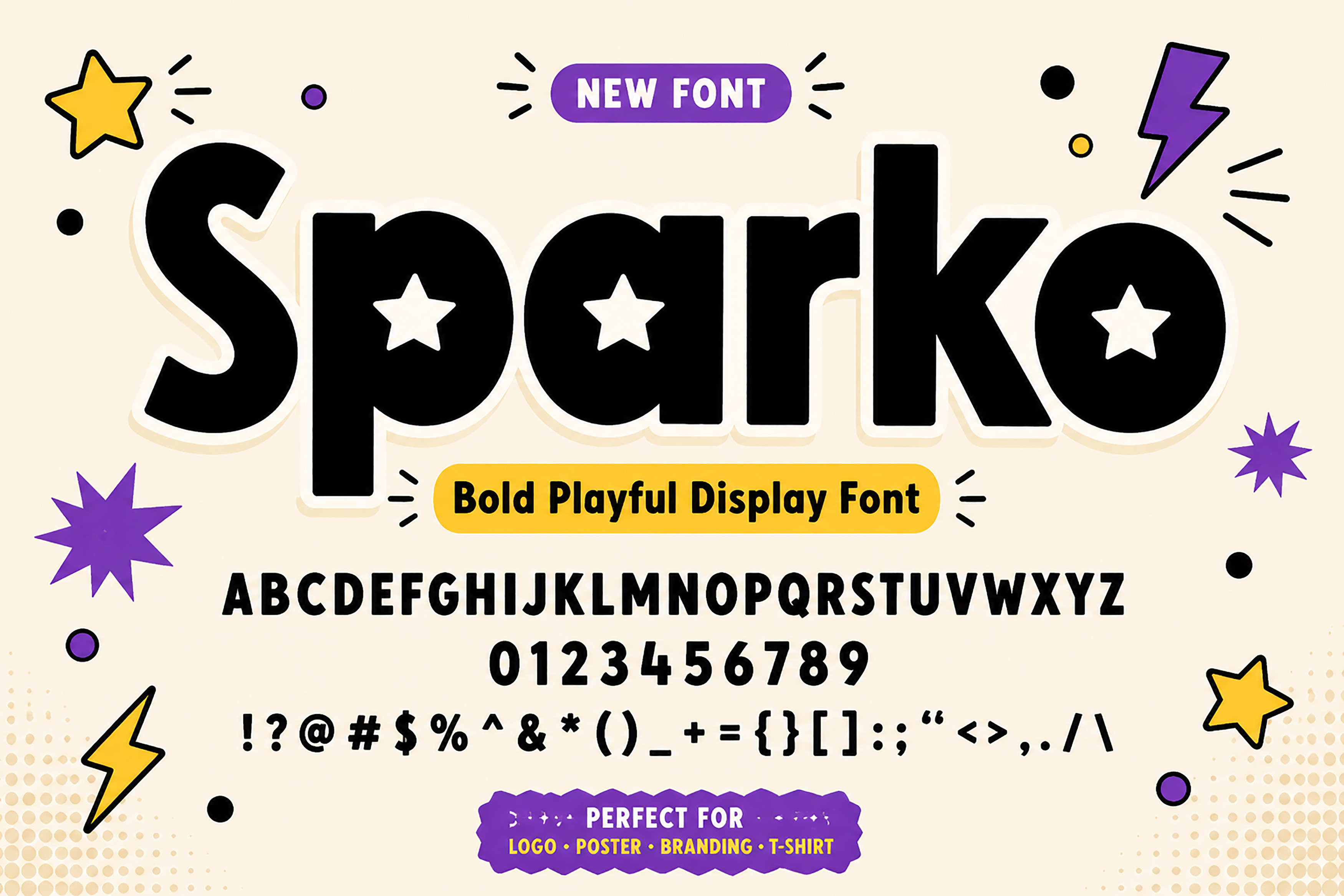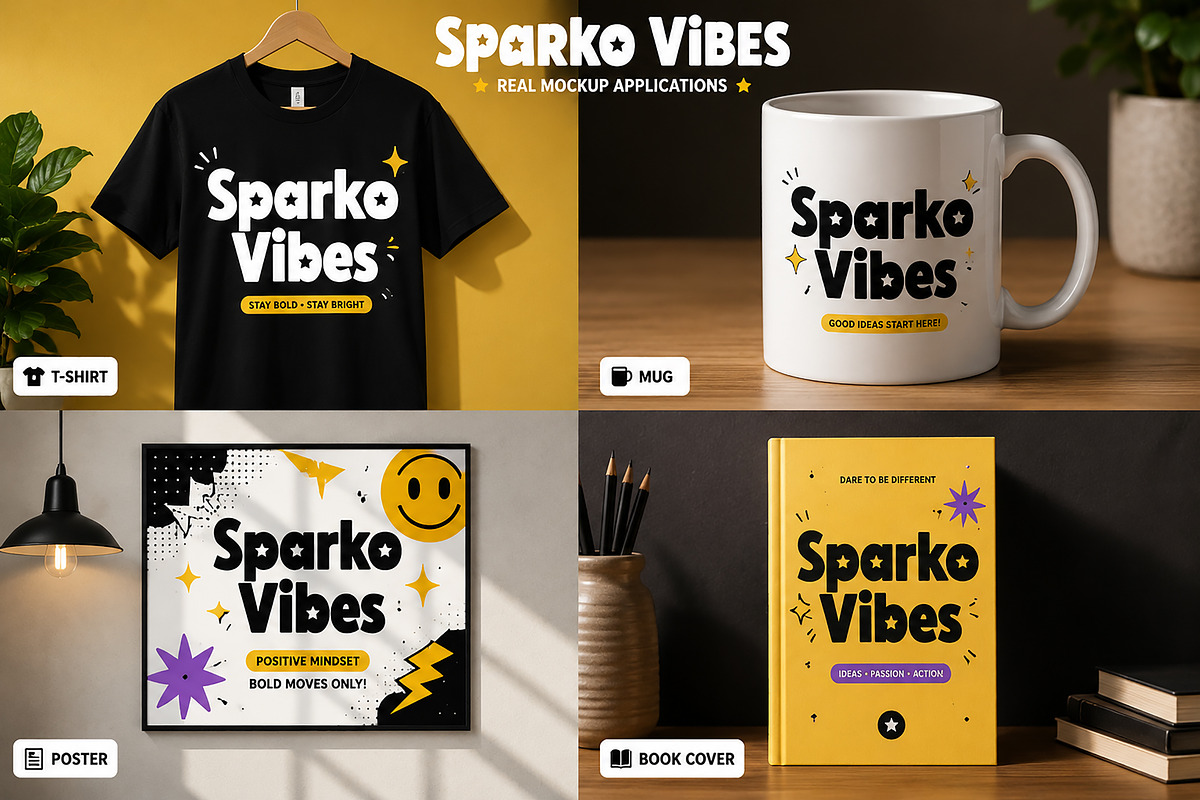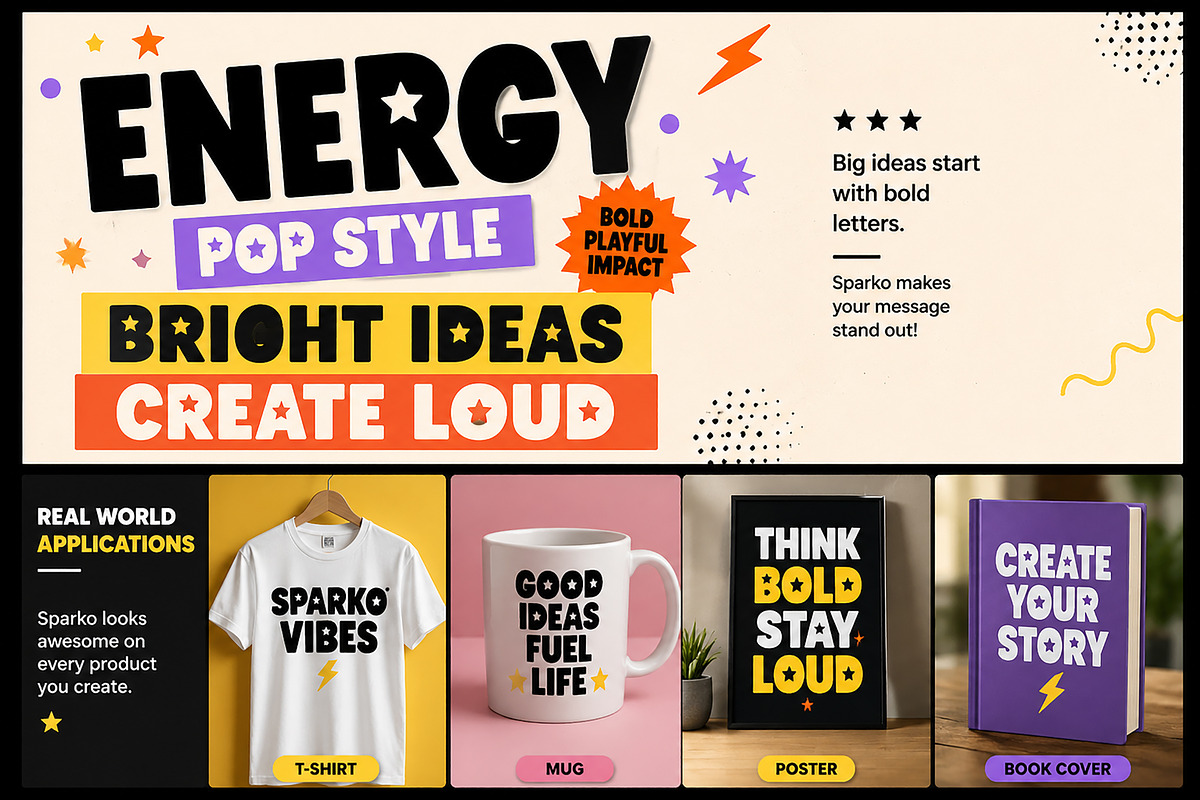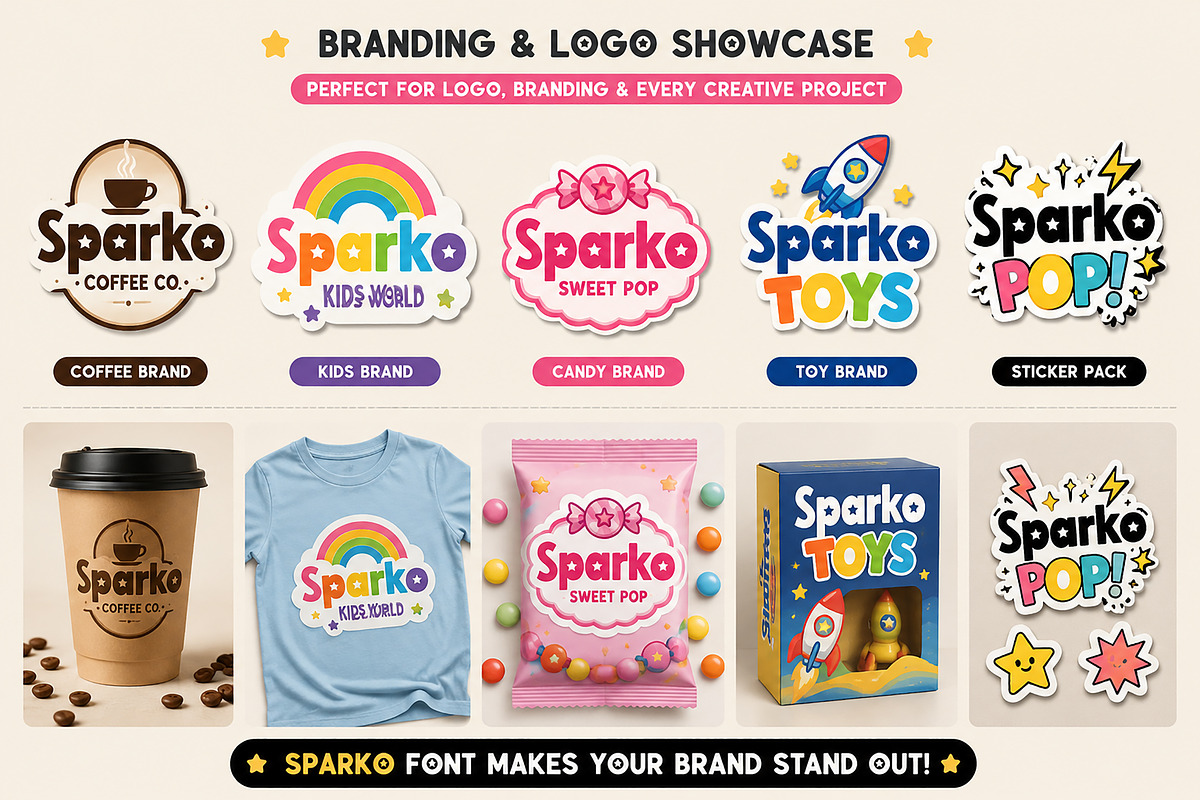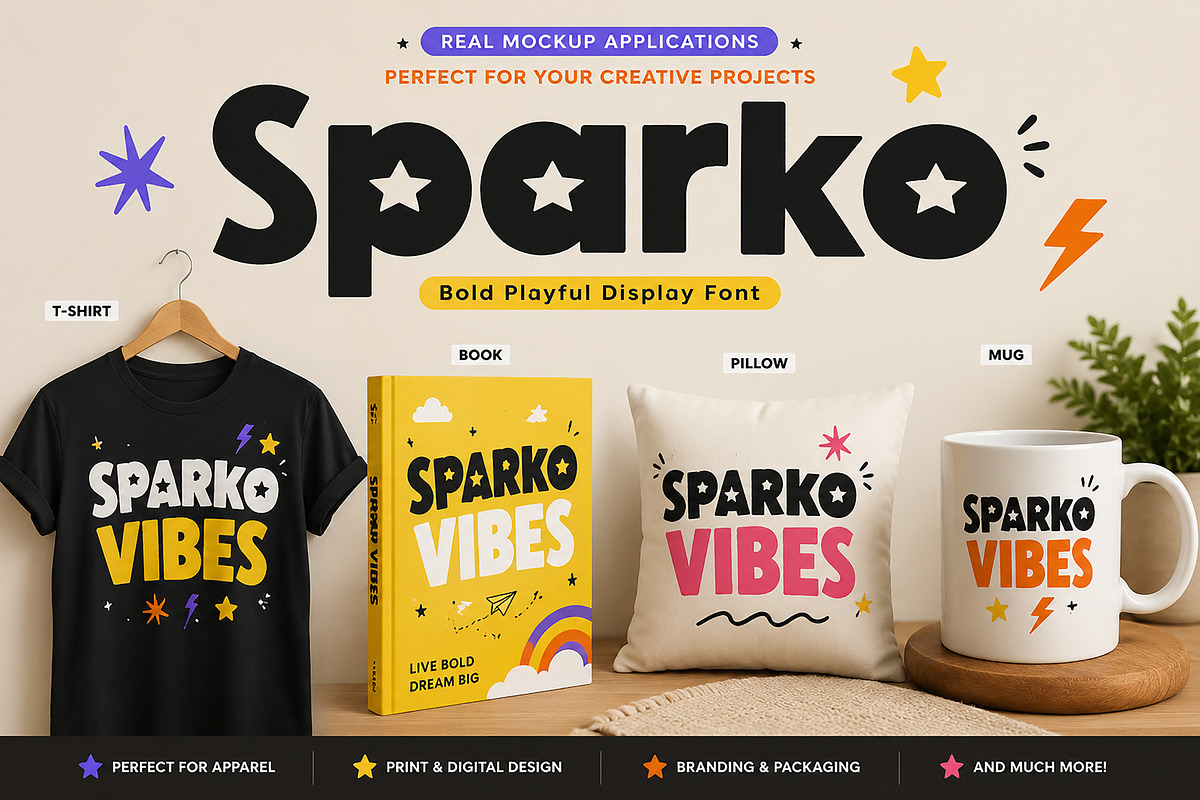
Sparko – Bold Playful Display Font
Bring energy, fun, and bold personality into your designs with Sparko — a chunky playful display font crafted to make your text stand out instantly. With its strong bold shapes, unique star-cut details, and cheerful character style, Sparko is perfect for eye-catching branding, logos, posters, kids’ projects, packaging, and social media designs.
Designed with a retro-pop and modern playful vibe, Sparko gives your creative projects a lively and memorable look. Whether you're building a toy brand, candy packaging, sticker designs, or bold merchandise, this font adds a strong visual impact effortlessly.
Logo design
Kids branding
Toy packaging
Candy labels
T-shirt design
Posters & headlines
Book covers
Mug designs
Stickers
Packaging design
Creative branding
Why You’ll Love Sparko
✔ Bold and playful personality
✔ Easy to read
✔ Great for logos and headlines
✔ Fun star-shaped decorative details
✔ Works on print and digital projects